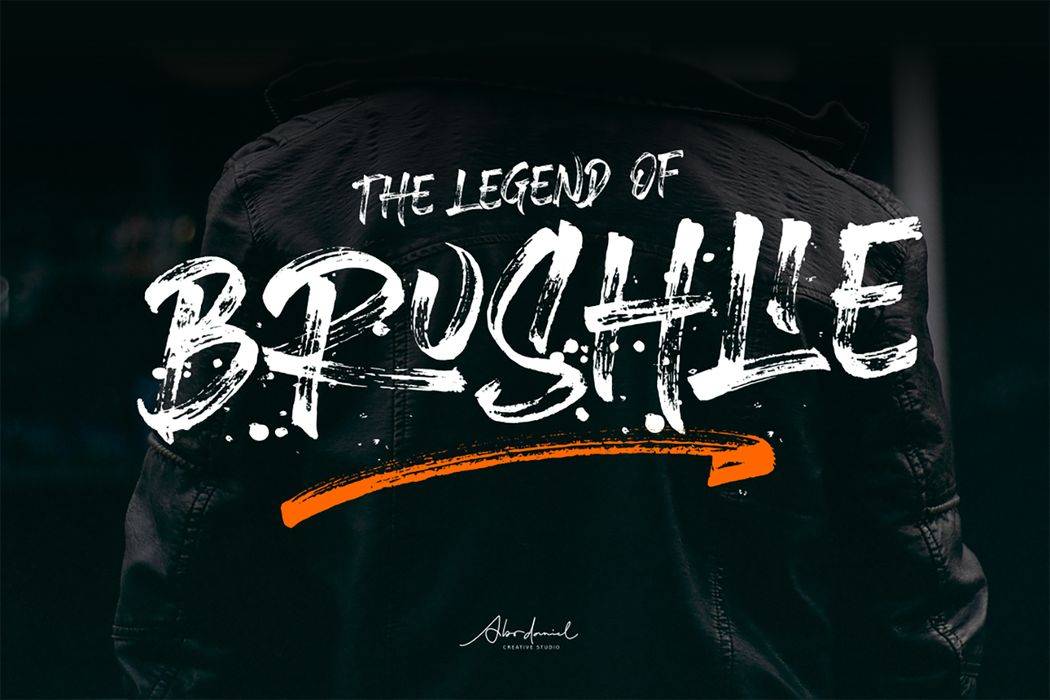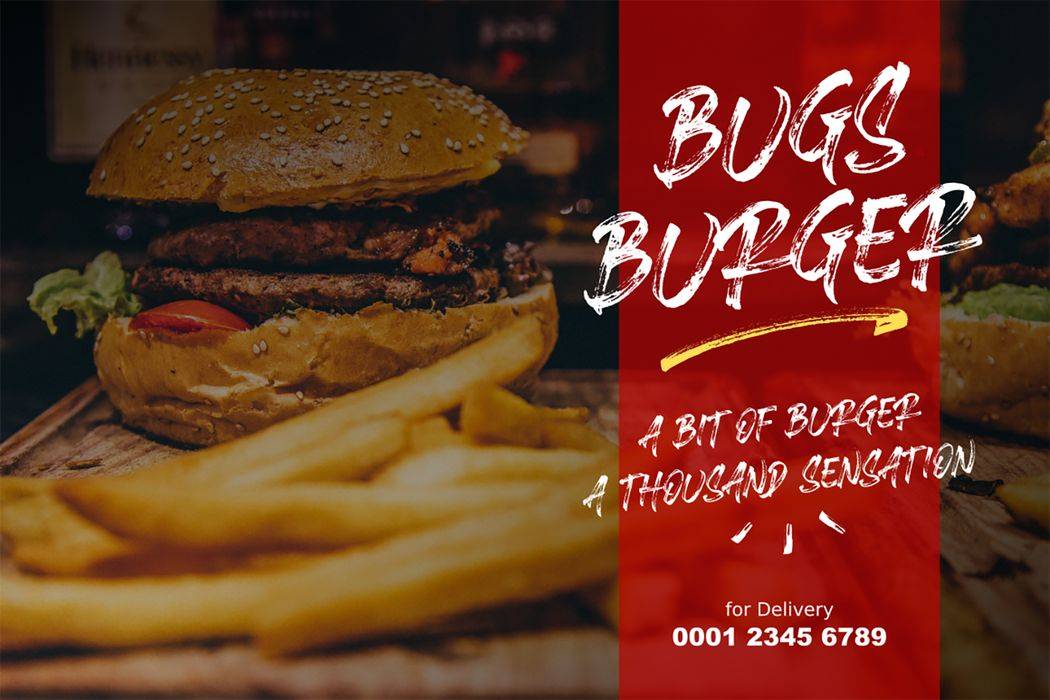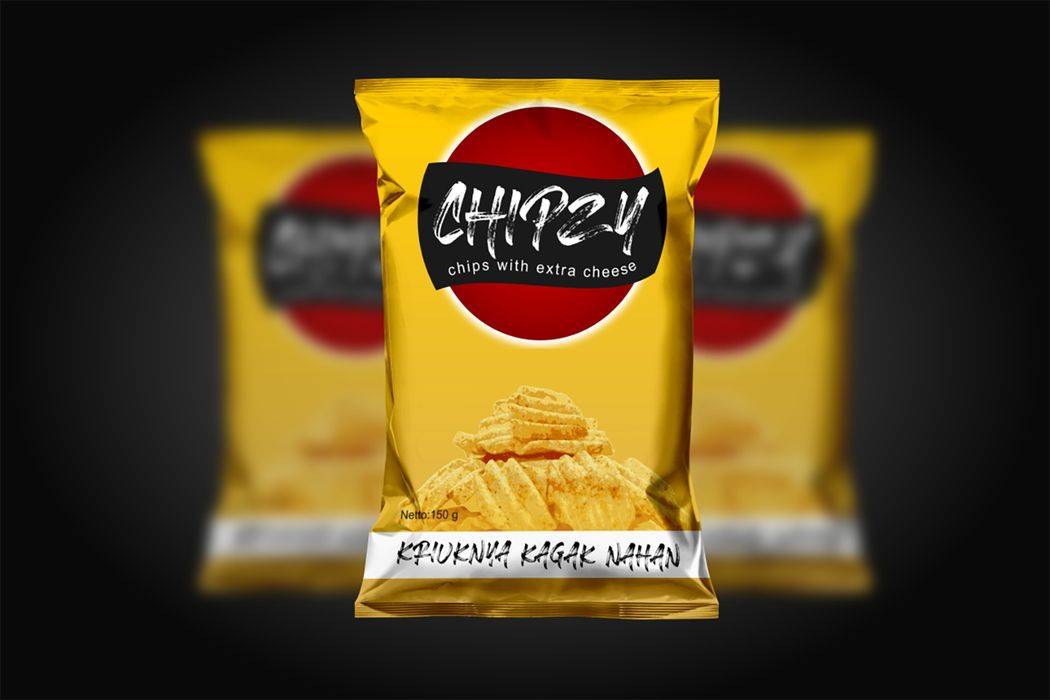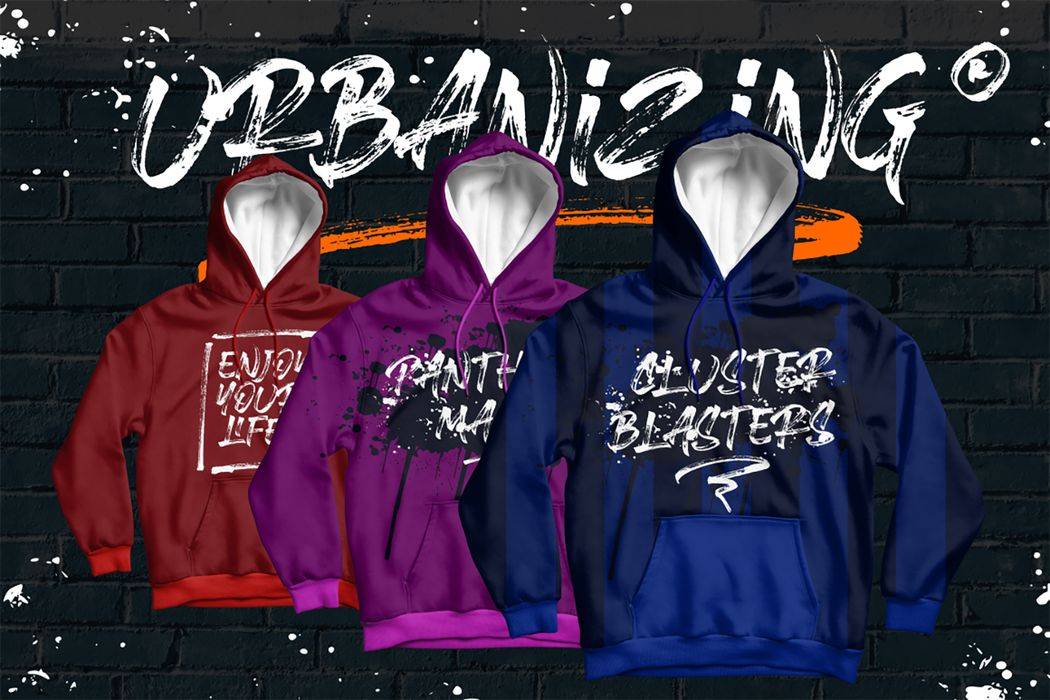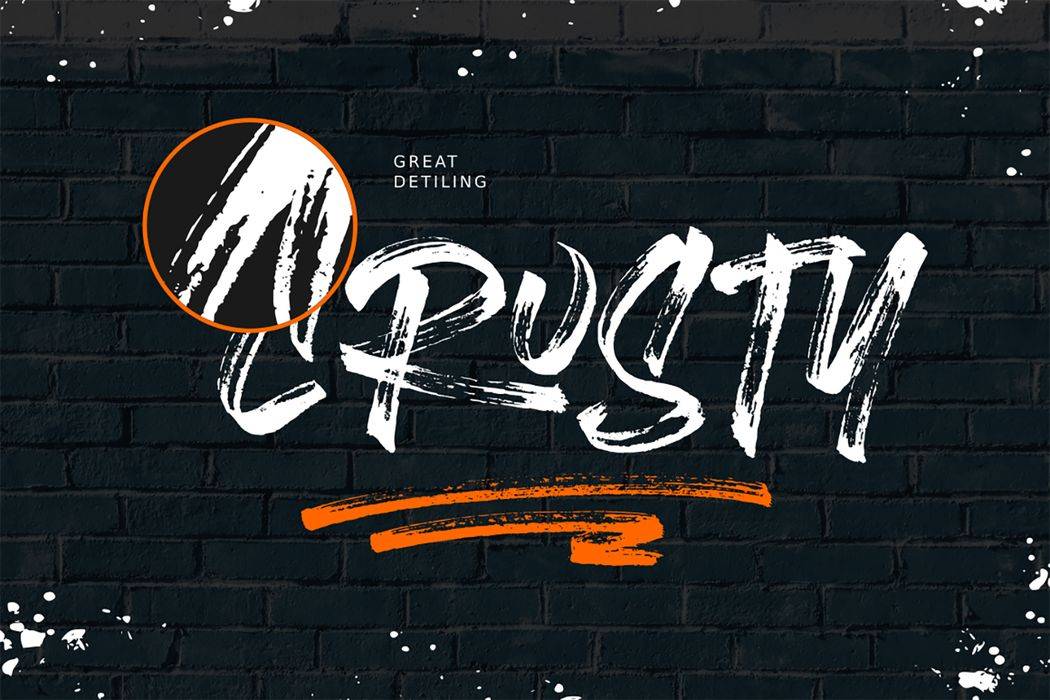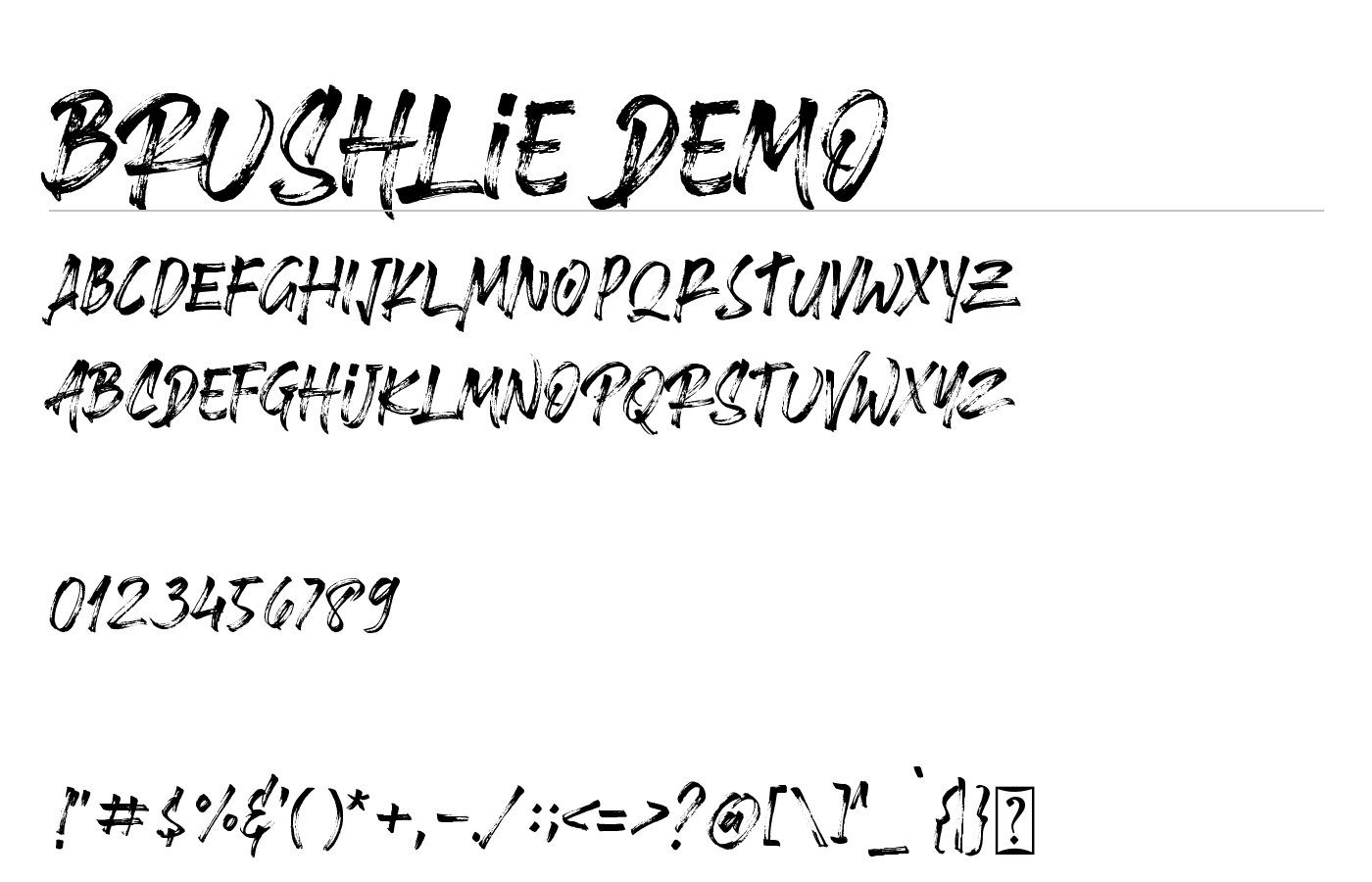
Brushlie is a bold and expressive brush script font that captures a hand-painted, artistic feel with its textured, rough strokes and dynamic, irregular letterforms. Its energetic style and casual elegance make it perfect for creative branding, posters, and headlines that seek a lively and authentic touch. This font works especially well in designs that want to communicate personality and spontaneity with a modern, handcrafted vibe.
Brushlie Font
About Brushlie Font
| Font family | Brushlie Font |
| Designer | Abo Daniel 2019 |